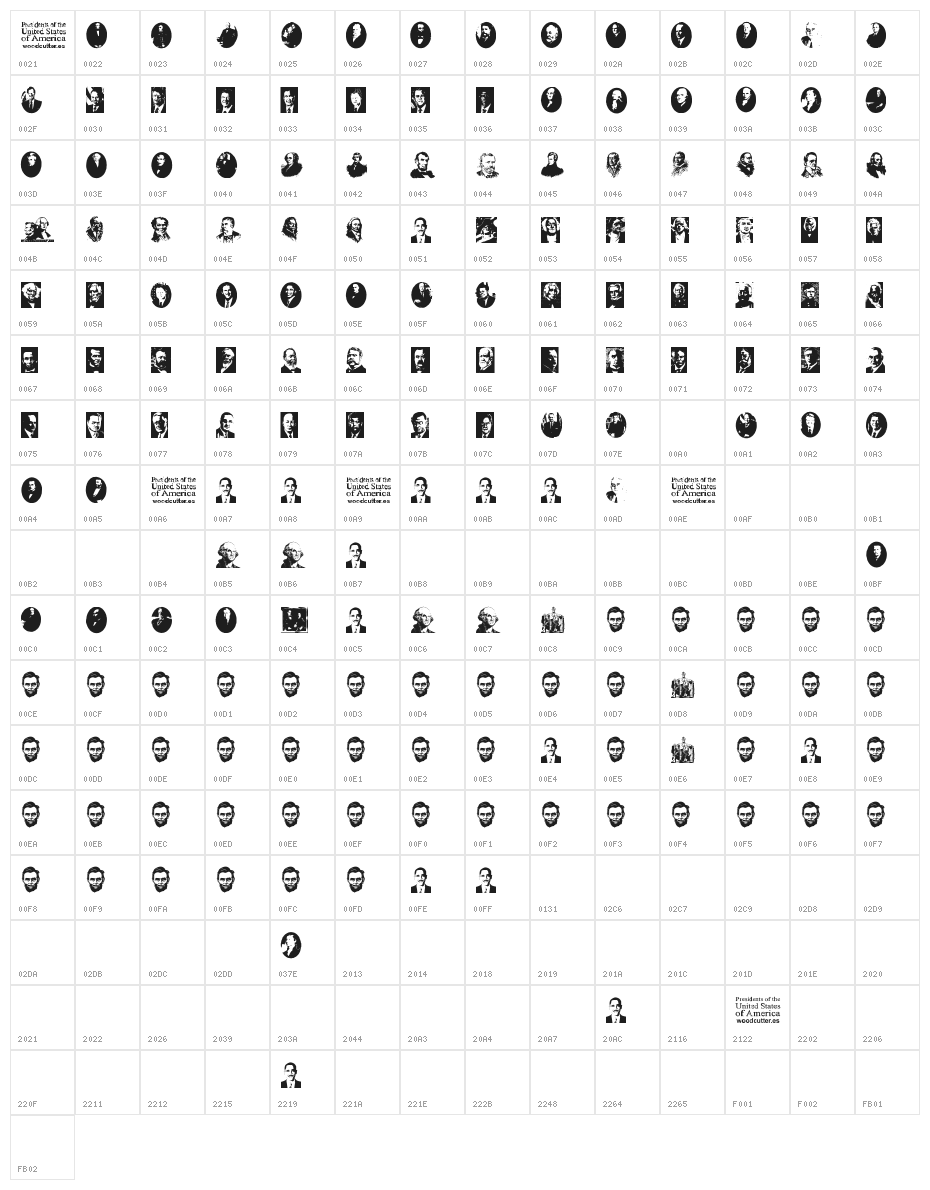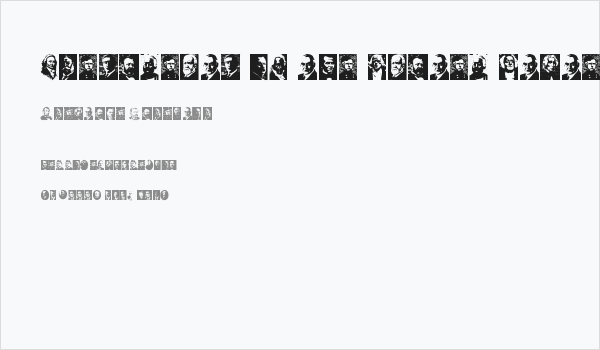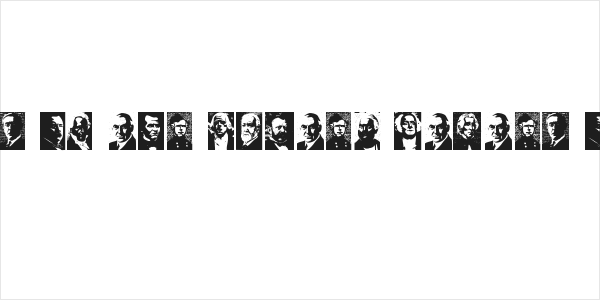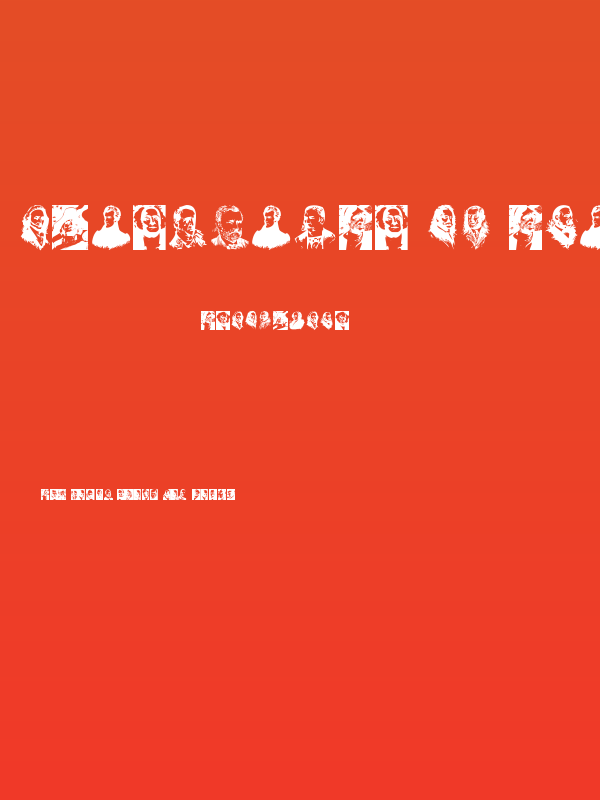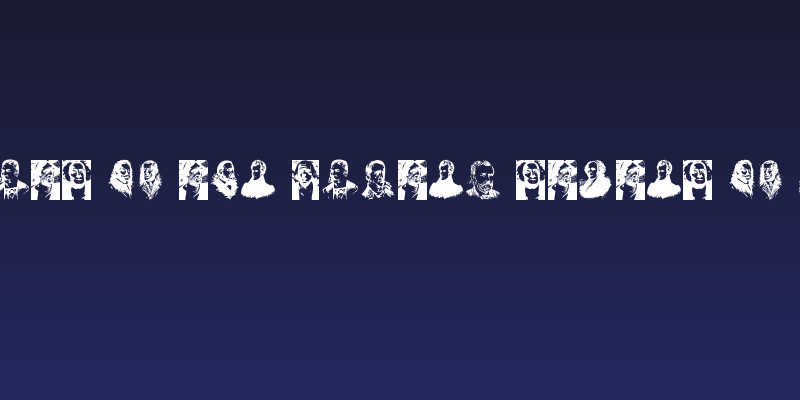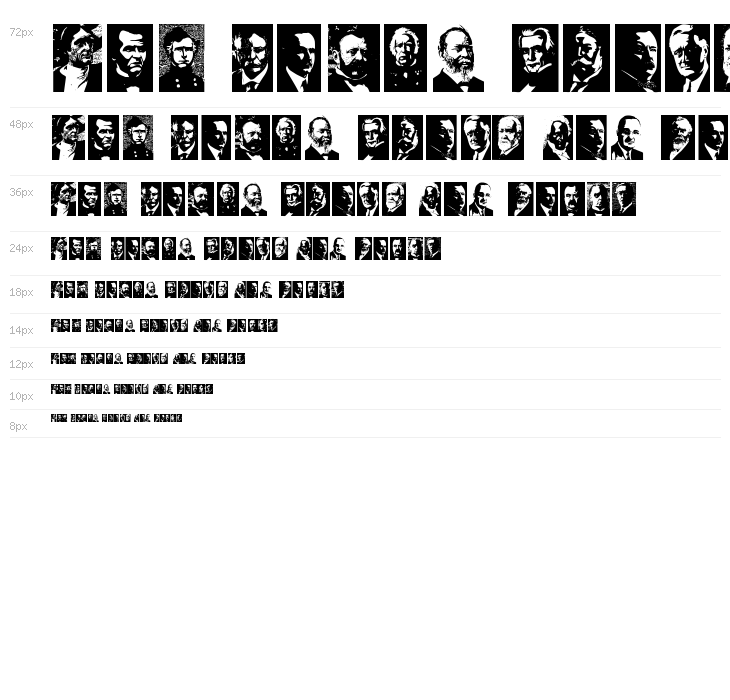
Presidents of the United States of America Font
Presidents of the United States of America Description
A decorative display typeface featuring high-contrast, black-and-white woodcut-style portraits of U.S. presidents in place of standard alphanumeric characters and symbols. Each glyph is a detailed illustration rather than a traditional letterform, making it highly stylized and thematic.
Overall StyleDecorative, Thematic, Vintage
Use CaseDisplay, Posters, Educational materials, Themed graphics
Proposed ProjectsEducational posters, history-themed event materials, novelty projects, classroom displays, collectible cards.